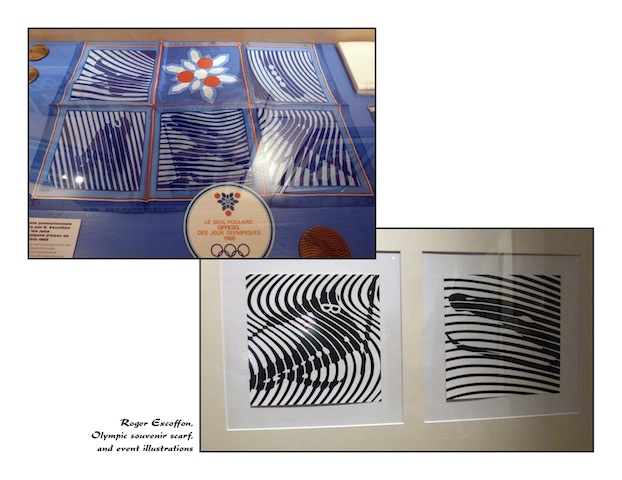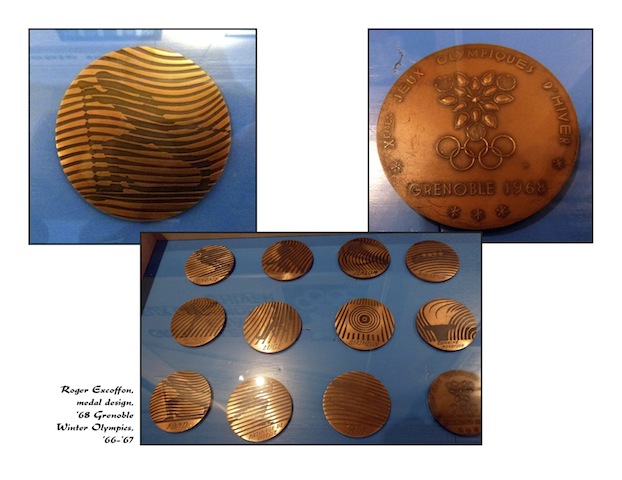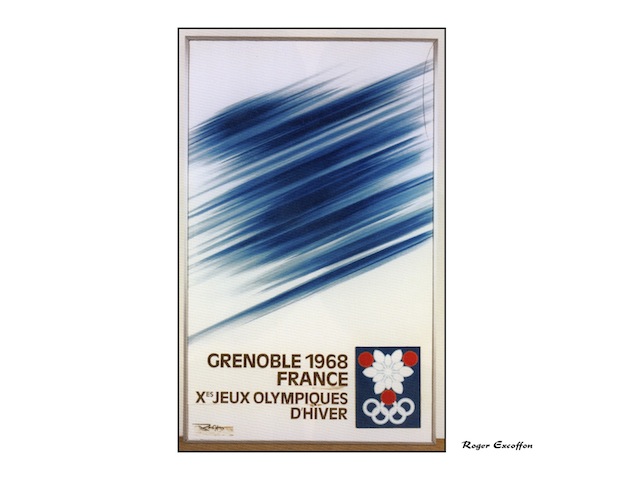
London Olympics
Not sure about the rest of the readers here, but I love to watch all I can of the Olympics.
It is riveting drama. Real drama—not scripted "reality show" stuff we are seemingly forced to endure now.
I have to say, I am not blown away by the letterstyle they chose for London, but I guess someone in some committee liked it.
Otherwise, the Olympic event banners, signs, props and bright colors all around are refreshing.
Re: London Olympics
That logo was very controversial when it first came out many did not like it , including me, but I think once it was out there they could not change it . In 2002 I was working for a large sign company that did most of the signs banners etc for the commonwealth games here in Manchester. What happens is that the games commitee employes what they call the LOOK team whose job it is to take the designs and incorporate them into each and every venue, flag ,bannner, sign etc.The main object is to make it all look good on TV. If you look at all the major games of the last few years you will see diiferent graphics but a similar LOOK to it all . Part of the reason for this is that the look team since Sidney in 2000 has been an Austrailian company that has done the look for all the games. When I worked back then it was an interesting insight to how it all goes together.
Re: London Olympics
Thanks for the note. I was watching a little of the Olympic coverage on TV this morning while eating a bowl of cereal. Yes, I like the overall Look, feel and consistency of the signs, banners and graphics. And, it definitely has the same look and feel of all recent Olympic games. I was mainly commenting on the quirky letterstyle they chose for this Olympics. Maybe it grows on you as you see it used more, but when I first saw just the word "London" in that font, I wasn't too moved by it.
Re: London Olympics
I take your point on the font, we have been seeing it for at least a couple of years now i am still not liking it. I think for most here it is just too far away from where we are in our swirly scrolls and busy designs. Though the oympics are a refreshing change on the TV
Re: London Olympics
By way of comparison, here are some photos of what Roger Excoffon (type designer of Mistral, Choc and Antique Olive) did for the 1968 Olympics. Carl Rohrs took the pictures at an exhibition of Excoffon's work in Paris last year (I think).
Re: London Olympics
Can't say tha I really get that logo they came up with. Just doesn't do that
much for me.
Re: London Olympics
As I look at the letterstyle, the one letter that doesn't seem to fit with the rest is the lower case "o". The Zero is boxy, but the lower case "o" is a perfect circle. But, what do I know.
The larger logo probably makes more sense if you live in London. I assume it is the shape of the venues of the Olympic village. If not that, maybe some can explain it?
Re: London Olympics
I never realized the jagged, block logo was really to be read as numbers: 2012
Re: London Olympics
I never liked this logo , When it first came out I had seen some really clever designs forwarded to the Olympic commitee and they ended up picking this one. It's all over London even on some of the driving lanes, I got a ticket for driving on the olympic lane for just 2 minutes last week £145 fine! ouch! Enjoying the games though, organised very well and the stadium is apsolutely amazing! uk are doing well with the medal tally, Husain Bolt runs the 200mtr tonight along with his mate Blake should be a good one to watch.!